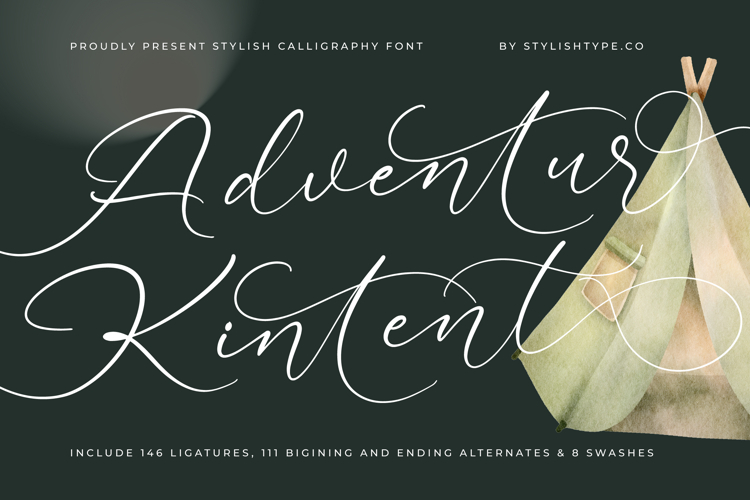
Adventur Kintent - Stylish Calligraphy Font
Adventure Kintent is a luxurious calligraphy script designed for creators who want expressive movement, elongated swashes, and refined handwritten elegance in every letter. With 146 ligatures, 111 beginning–ending alternates, and 8 flowing swashes, this typeface offers exceptional versatility for wedding branding, boutique packaging, modern invitations, logos, editorial layouts, and high-end creative projects. Its delicate curves and sweeping flourishes deliver a polished signature aesthetic that elevates any visual presentation with warmth, sophistication, and artistic charm.